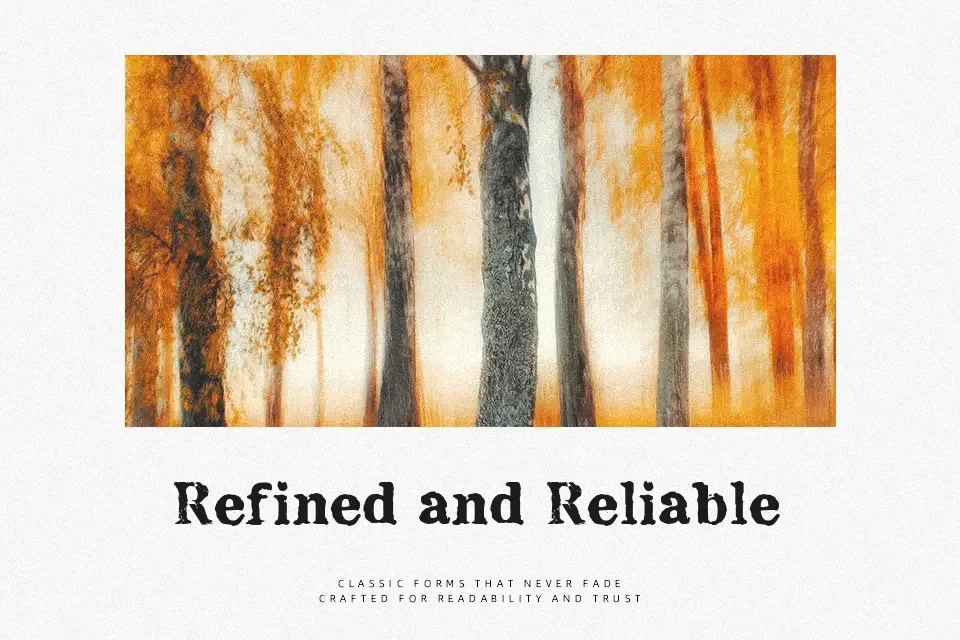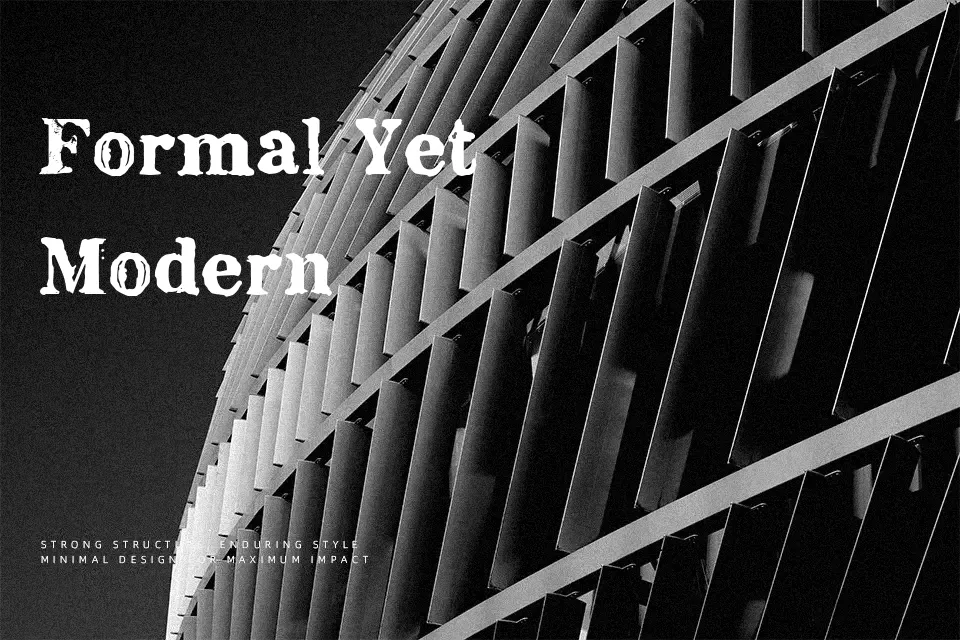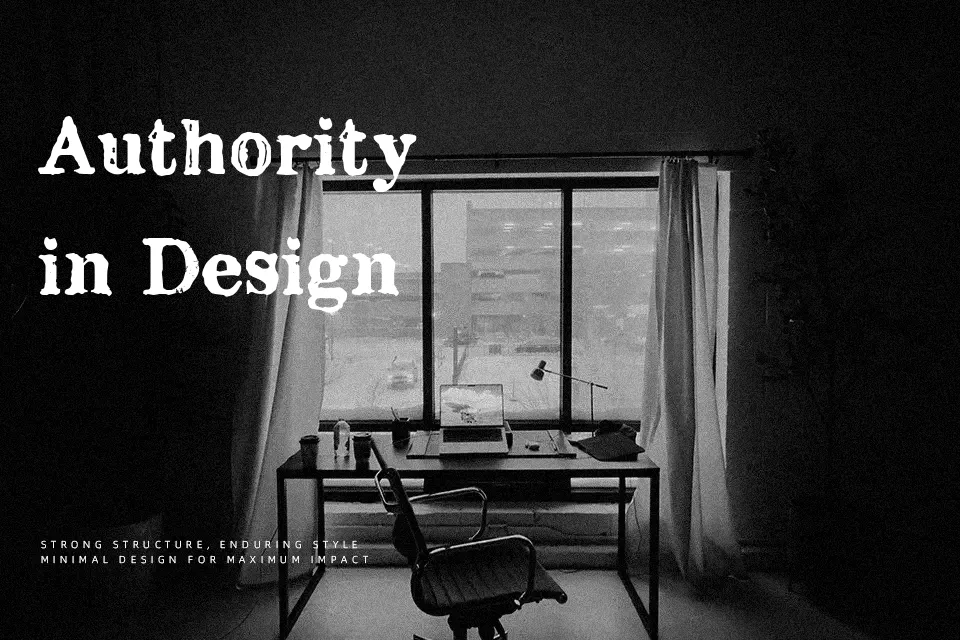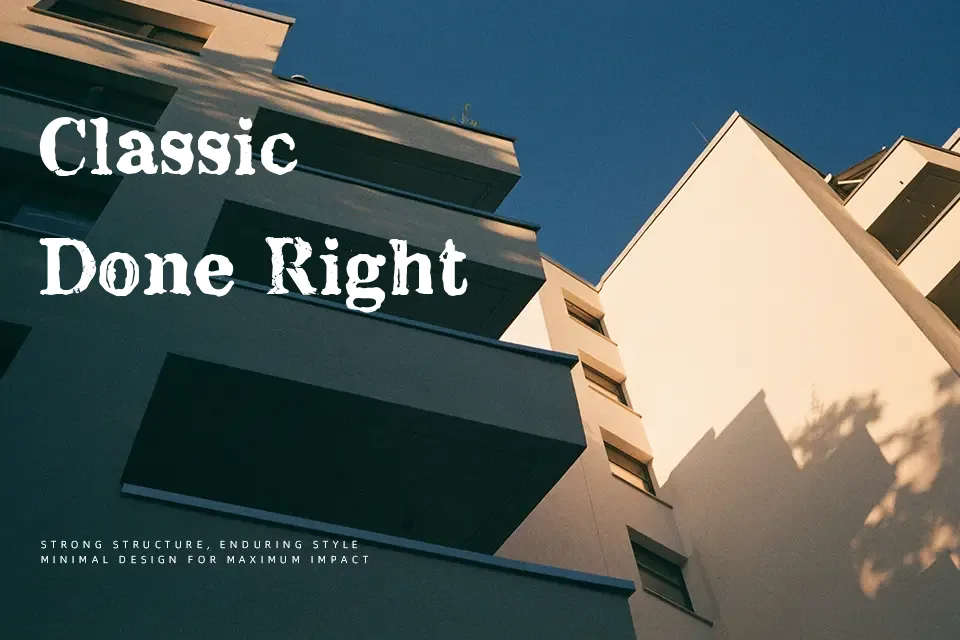
Chenier Font
Chenier Font exhibits a rugged aesthetic defined by eroded stroke boundaries, uneven ink-bleed textures, and classic serif foundations. The letterforms display moderate contrast across vertical stems and horizontal bars, supported by sturdy baseline proportions and generous spacing that preserve letter recognition. While the design delivers memorable texture across music album artwork, apparel graphics, and cinematic title cards, the heavy surface degradation substantially diminishes legibility when rendered in continuous body copy or compact digital captions. The distressed treatment helps establish an authentic weathered mood at large display scales, though dense layouts quickly suffer from visual clutter.
Best For: vintage poster headlines,music album artwork,distressed apparel graphics,cinematic title cards
Not Ideal For: continuous body copy,small digital captions,dense editorial paragraphs,corporate spreadsheet data
Perfect for branding, film, and headline, with a dark and decorative style.